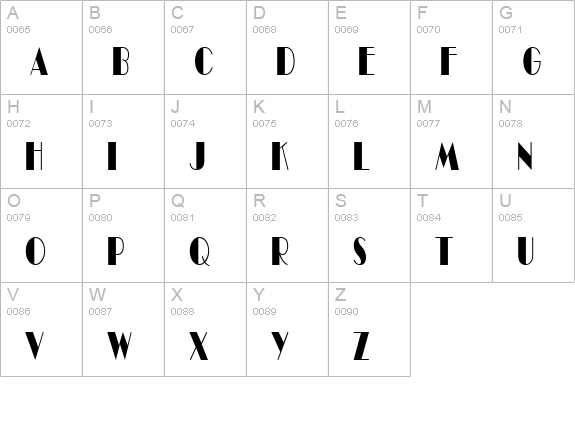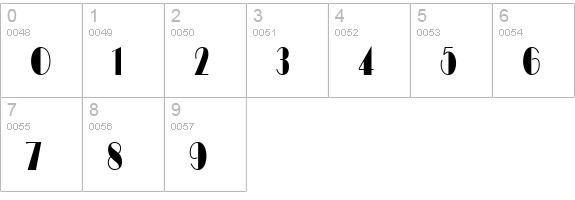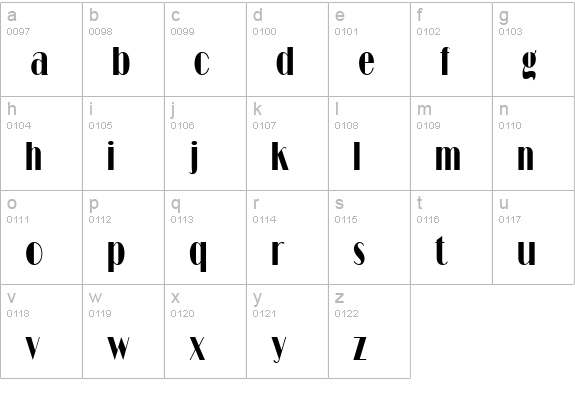
Barbe Display Condensed SSi Condensed is a distinctive, condensed-width variant in the Barbe typeface family \xE2\x80\x94 well suited to design and typography projects.
Barbe Display Condensed SSi Condensed font is a sleek and modern typeface that exudes sophistication and elegance. With its condensed style, this font is perfect for creating impactful headlines, signage, and branding materials. The sharp and clean lines of Barbe Display Condensed SSi make it stand out and grab attention. The best part? Barbe Display Condensed SSi Condensed font is available for free download at FontsMarket.com, making it accessible to designers and creatives looking to add a touch of refinement to their projects without breaking the bank. Whether you're working on a website, poster, or logo design, this font is sure to elevate your work with its unique charm and versatility.